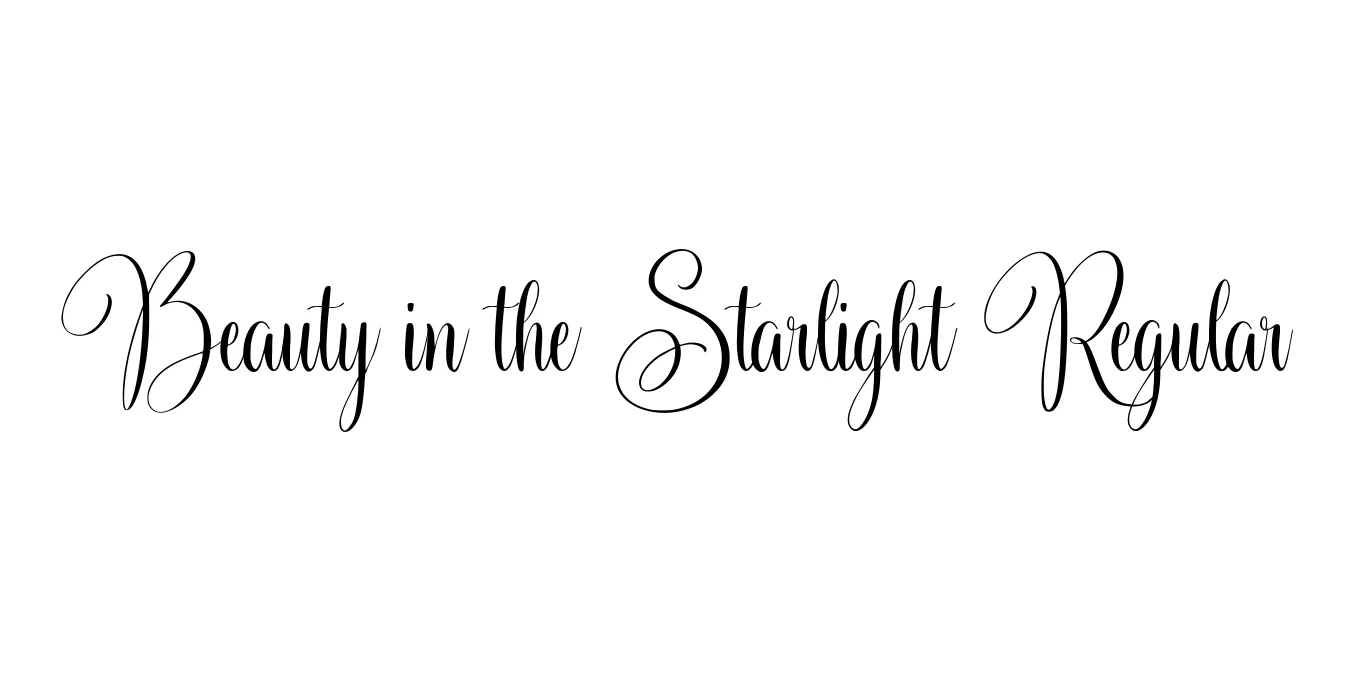
Beauty in the Starlight Regular
Beauty in the Starlight Regular is an exquisite and flowing script typeface that embodies the grace of modern calligraphy. Characterized by its fluid transitions and delicate terminal flourishes, this font is designed to evoke a sense of romance and sophistication. Each stroke is carefully balanced to maintain readability while offering a whimsical, hand-drawn aesthetic that feels both personal and high-end.
The typeface is highly regarded for its versatility in creative projects, featuring a robust set of ligatures and stylistic alternates. This allows designers to create custom-looking typography that mimics the natural variations of real handwriting. Since its release, it has become a staple for designers working on projects that require an elegant, feminine touch, ranging from boutique branding to digital storytelling.
Beauty in the Starlight Regular Best Uses
Perfect for creating romantic and elegant invitations, RSVP cards, and seating charts.
Ideal for luxury fashion, beauty, and lifestyle brands seeking a sophisticated logo.
Enhances inspirational quotes and aesthetic lifestyle posts on platforms like Instagram.
Adds a refined, artistic touch to magazine headers and special feature layouts.